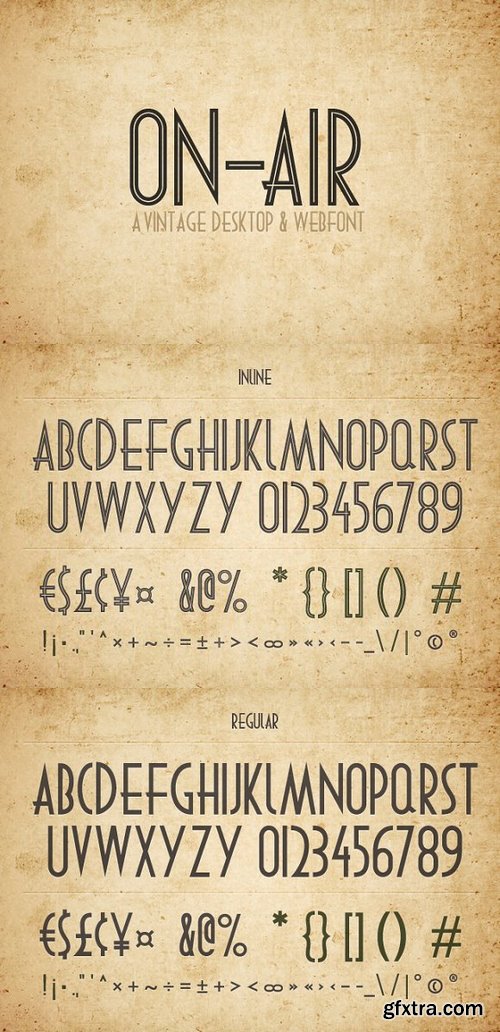
On-Air is a vintage typeface inspired by retro media and broadcasting. The font uses all capital letters and contains two variations each with 127 glyphs. All western letters and numeric characters and most common symbols are included. The outlined version of this font offers an even greater retro effect while still remaining easily readable. The download includes both desktop versions of the font and a web-font kit with @font-face capability and ready-to-use CSS code. Just upload the font files, install the CSS, and use this font on the web in minutes.